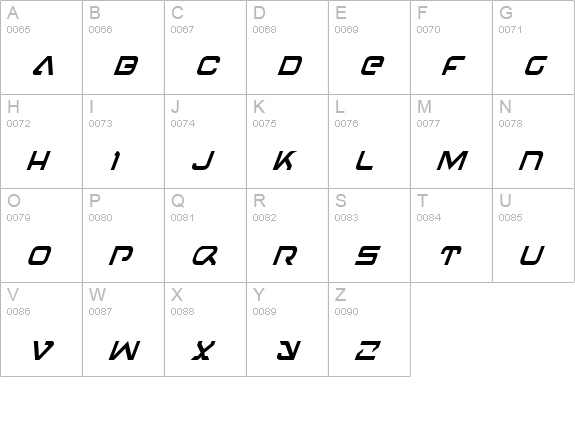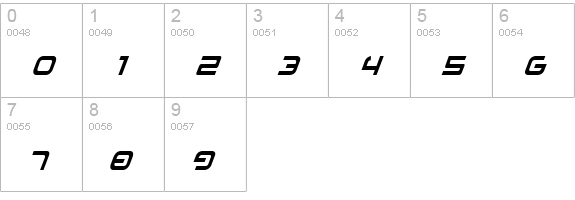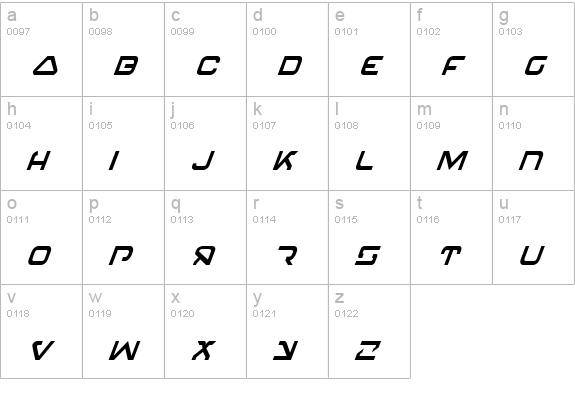
4114 Blaster Condensed Italic is a distinctive, condensed-width, italic variant in the 4114 typeface family \xE2\x80\x94 well suited to design and typography projects.
The 4114 Blaster Condensed Italic font is a sleek and modern typeface that exudes energy and power. Its condensed italic design adds a dynamic flair to any design project, making it ideal for titles, headers, and branding materials. With its sharp lines and unique style, this font is sure to make a bold statement. Best of all, the 4114 Blaster Condensed Italic font is available for free download at FontsMarket.com. Whether you're a designer looking to add a fresh touch to your projects or a creative looking for a new font to inspire your work, this font is a must-have in your collection. Download it today and unleash the creative possibilities of this stunning typeface.